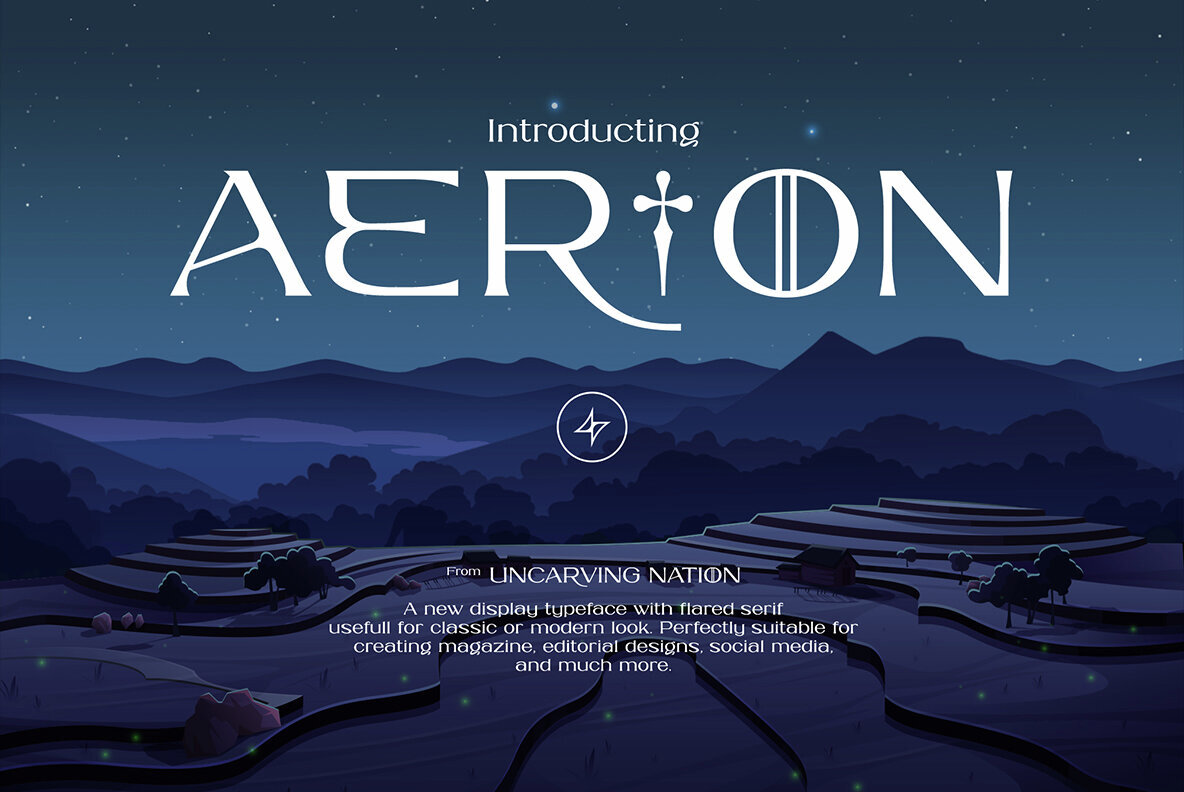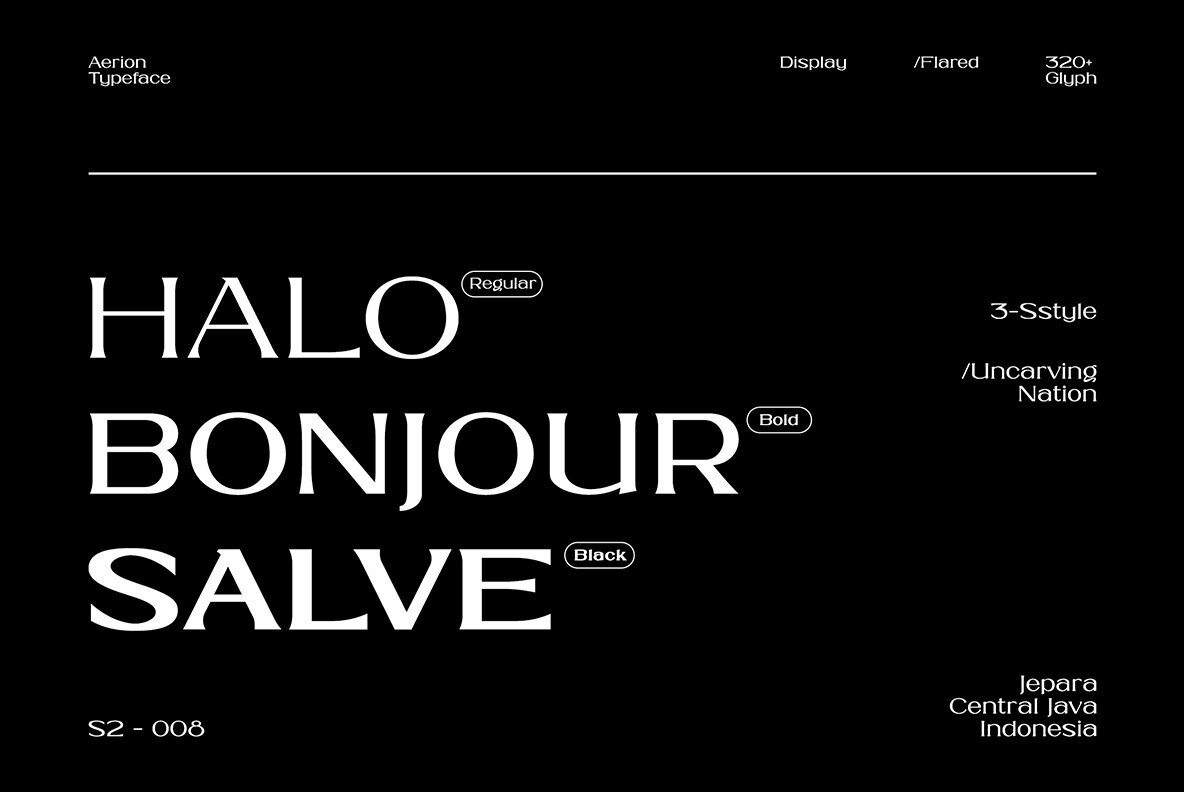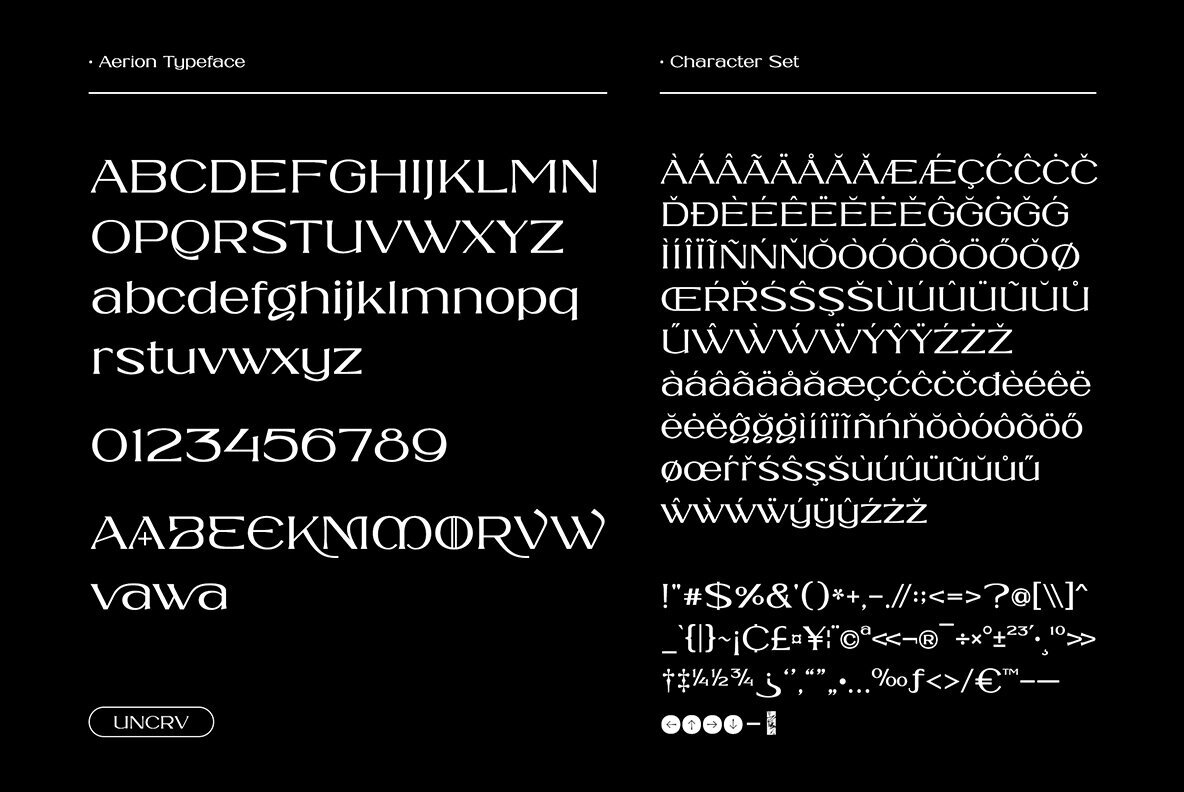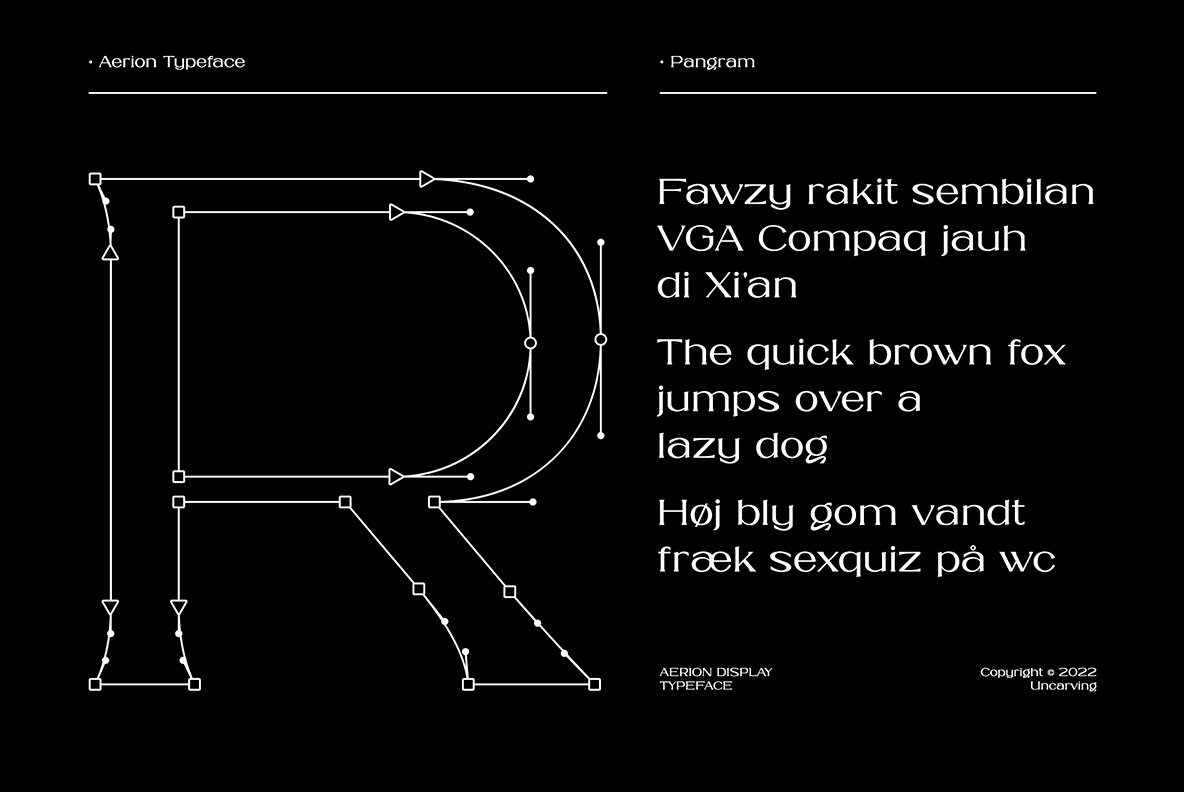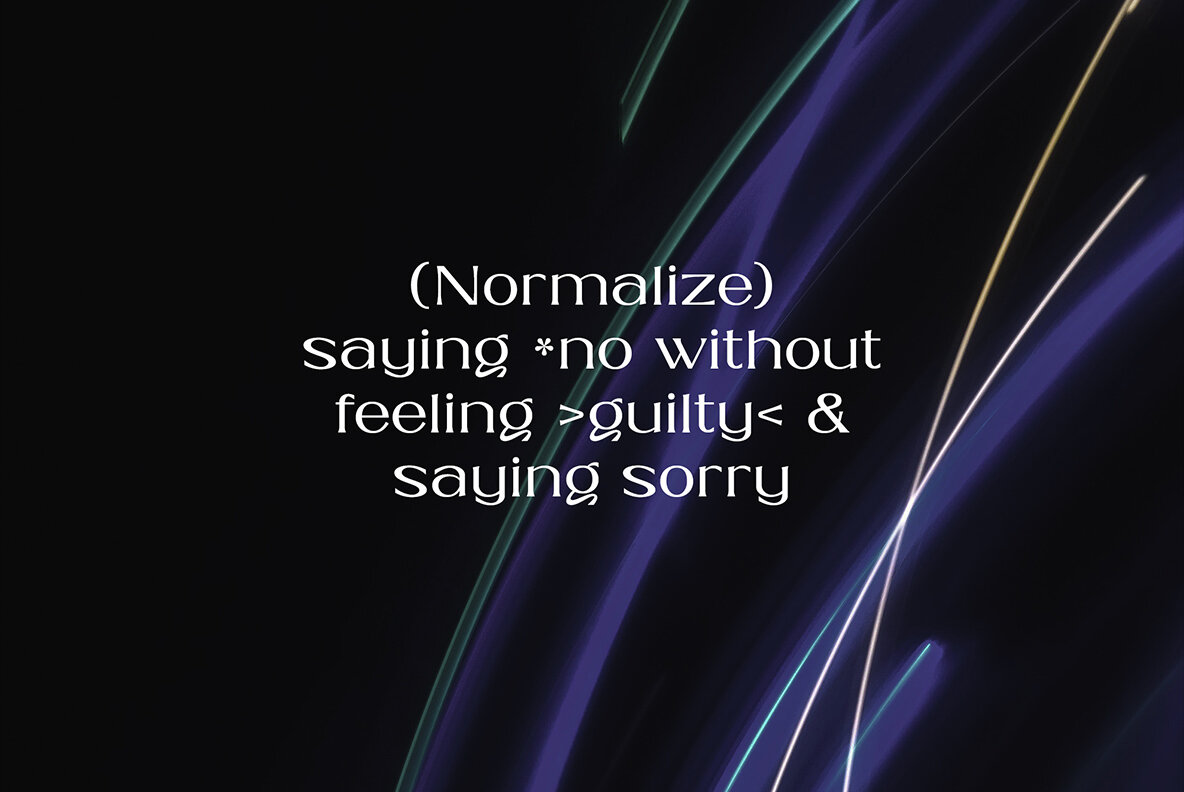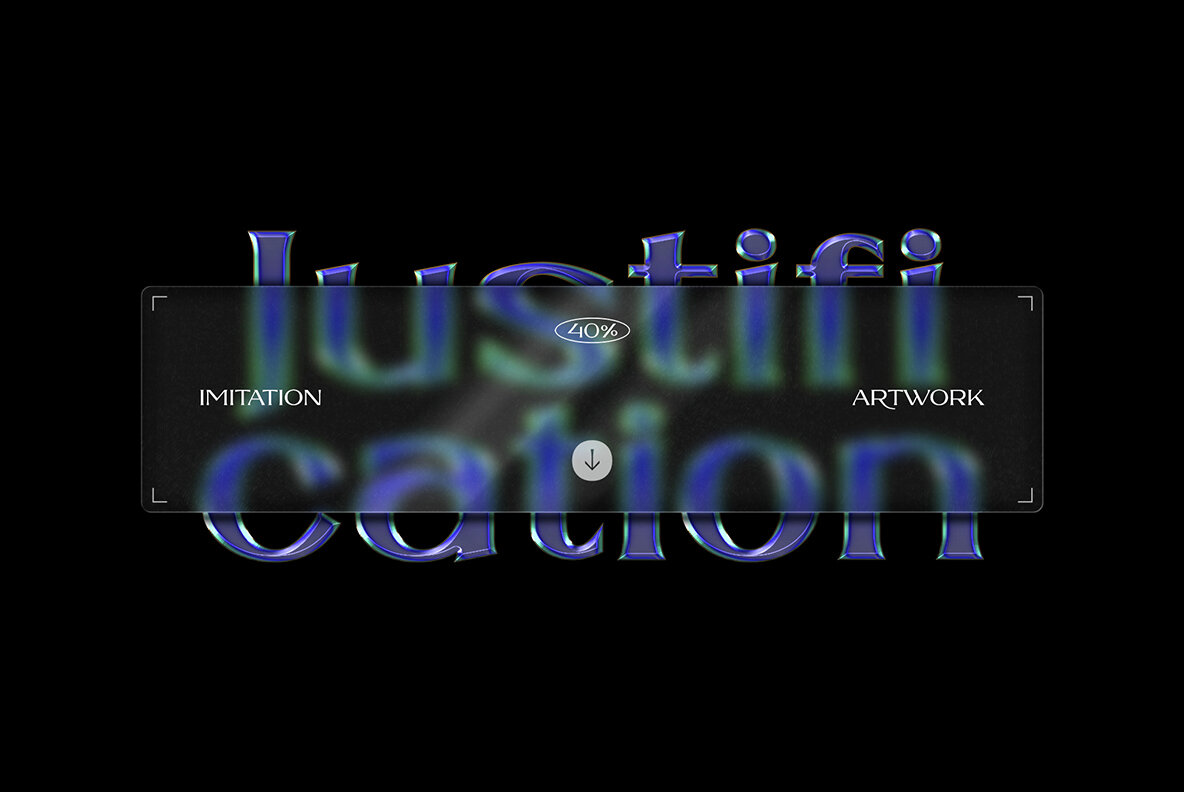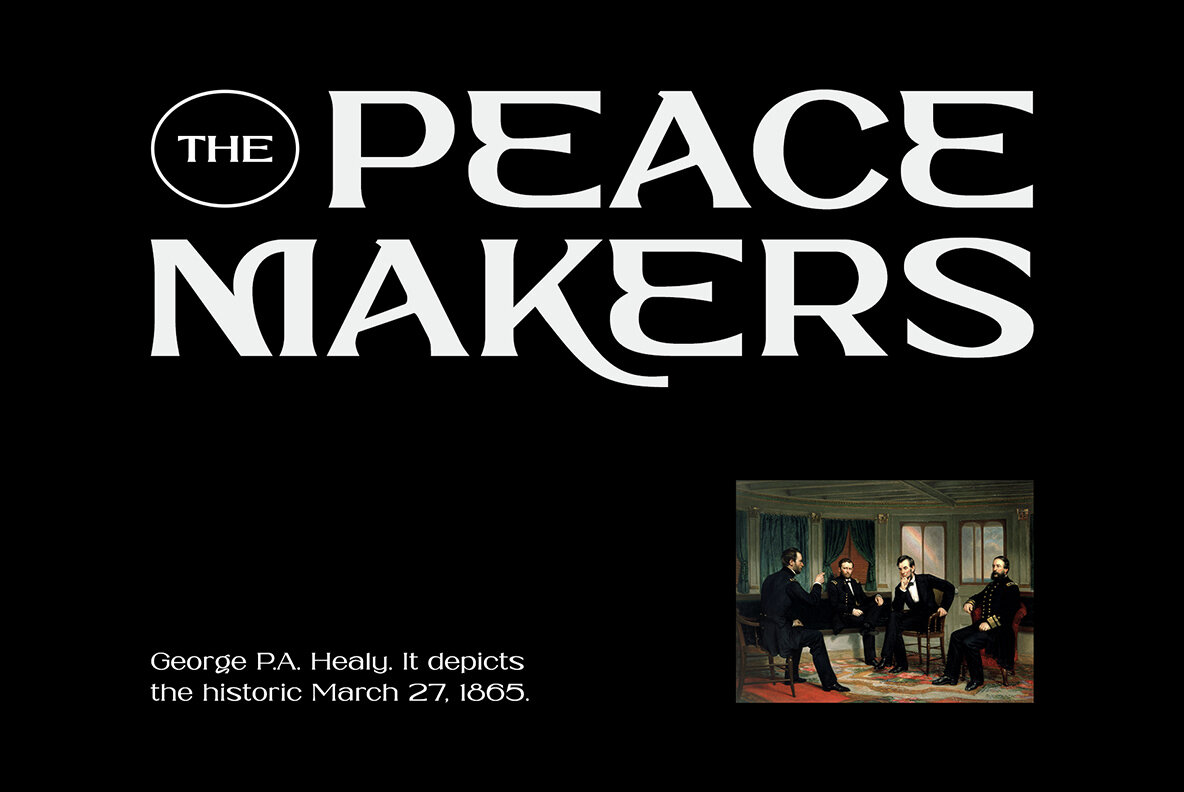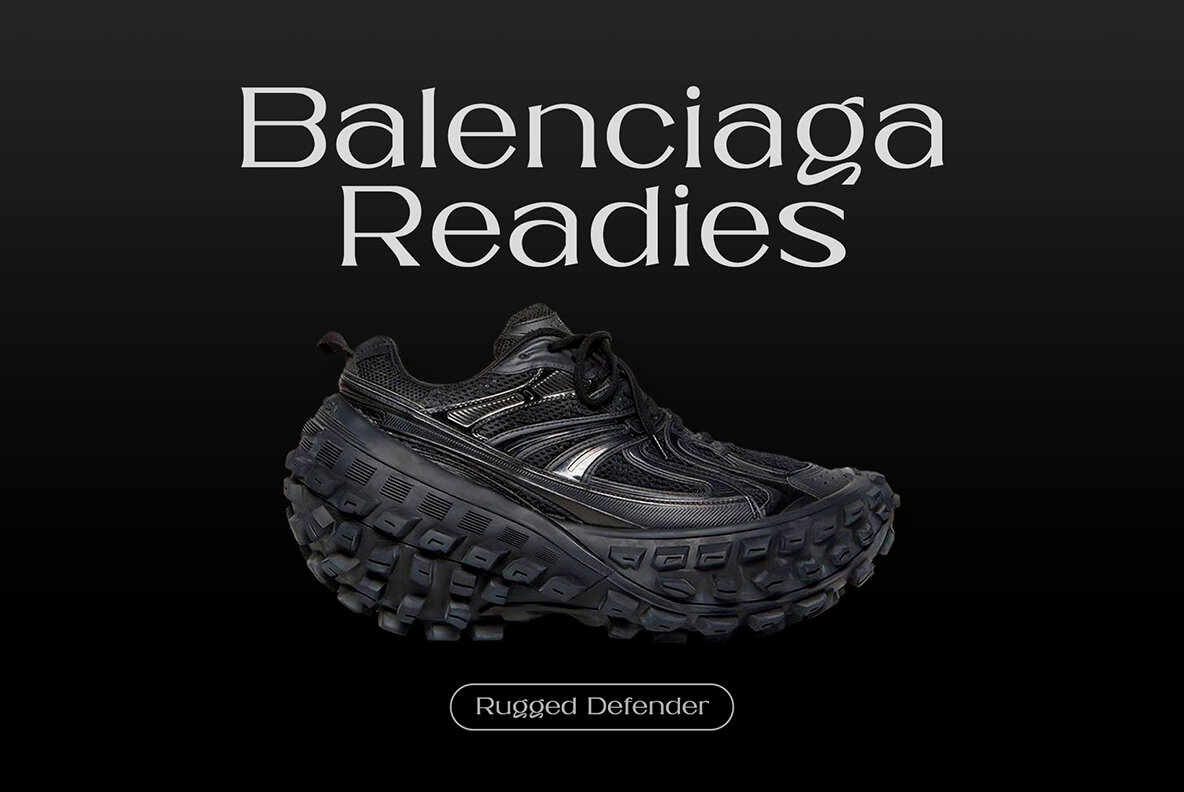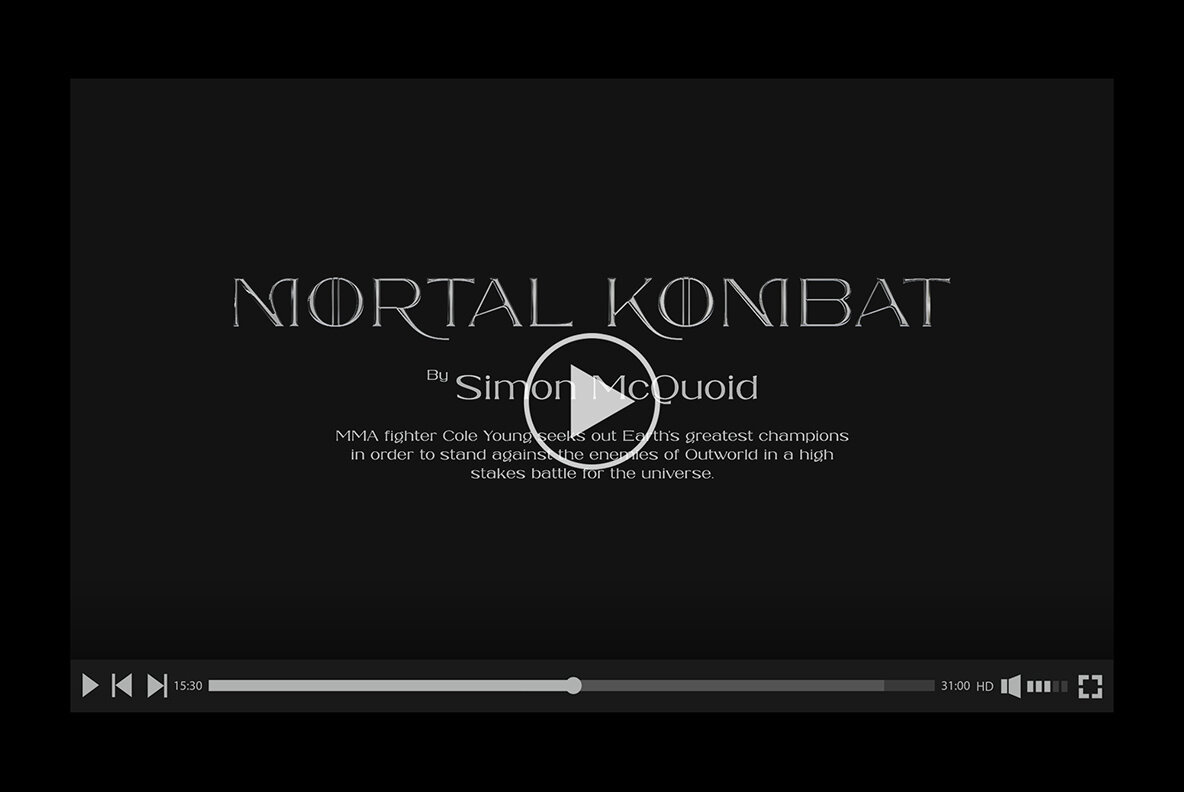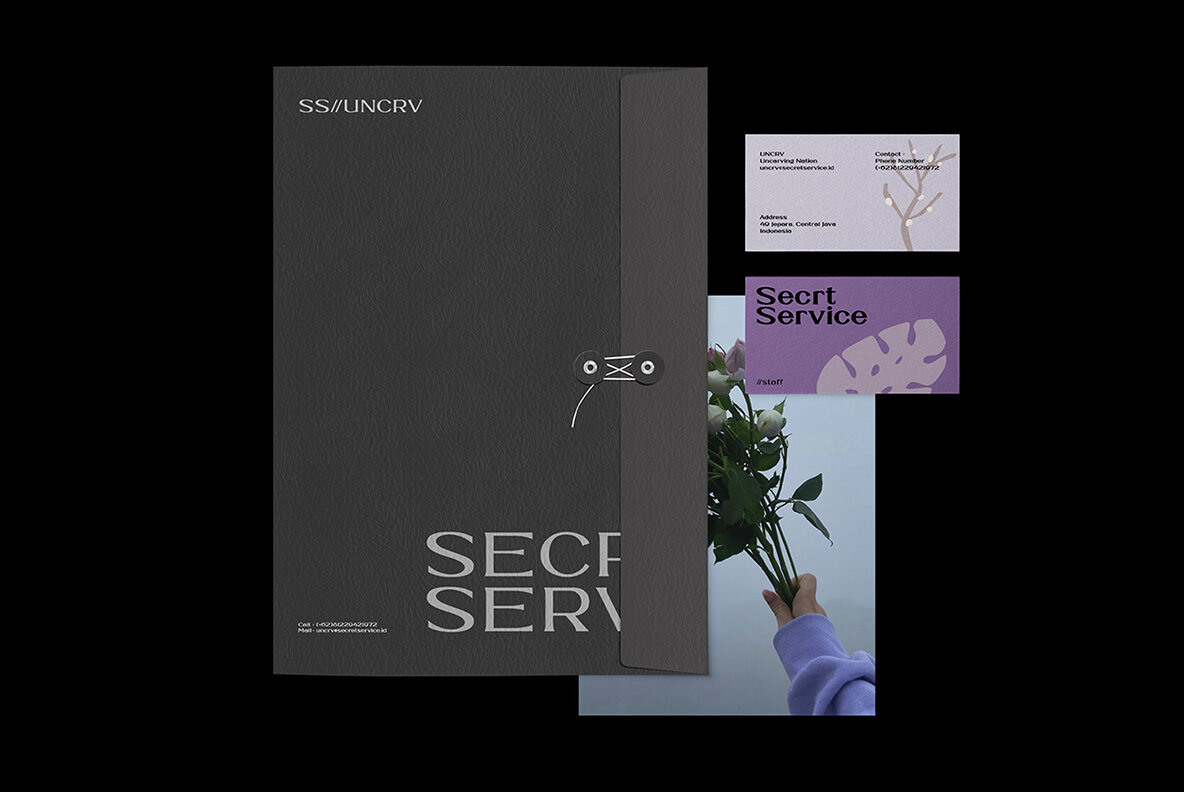
Aerion Font
Aerion is a distinct display typeface known for its elegant flared serifs, seamlessly bridging the gap between classic and modern design aesthetics. This typeface is ideal for magazine layouts, editorial compositions, and enhancing social media graphics. Its versatile nature makes it an excellent choice for a wide array of projects.Aerion: Flared Serif for Timeless Design
Uncarving Nation is a type foundry based in Jepara, Indonesia, Its aim is to explore typography based on elements that the founder, as a graphic designer, finds useful and enjoyable.Over the last two years, he has discovered many new aspects of typography from various genres, which he combines to create fr...